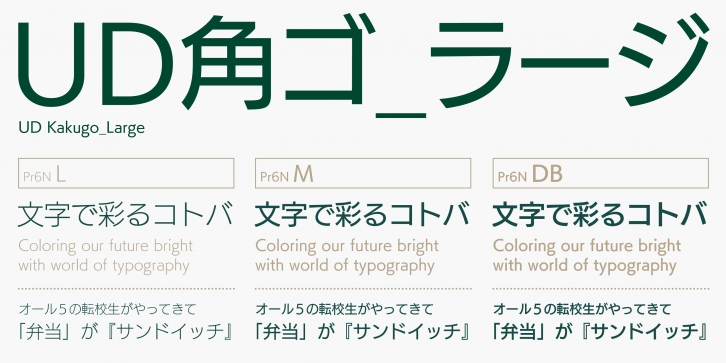
Based on “New Rodin,†which is most suitable for display, FOT-UDKakugo Large Pr6N is a modern gothic (sans-serif) typeface with the size of kana characters adjusted to bring them closer to the size of kanji (ideographic) characters and its alphanumeric characters redesigned to enhance the visibility and legibility. Similar design adjustments were made to the voiced and half-voiced sound marks in some of the heavier weights in this family.